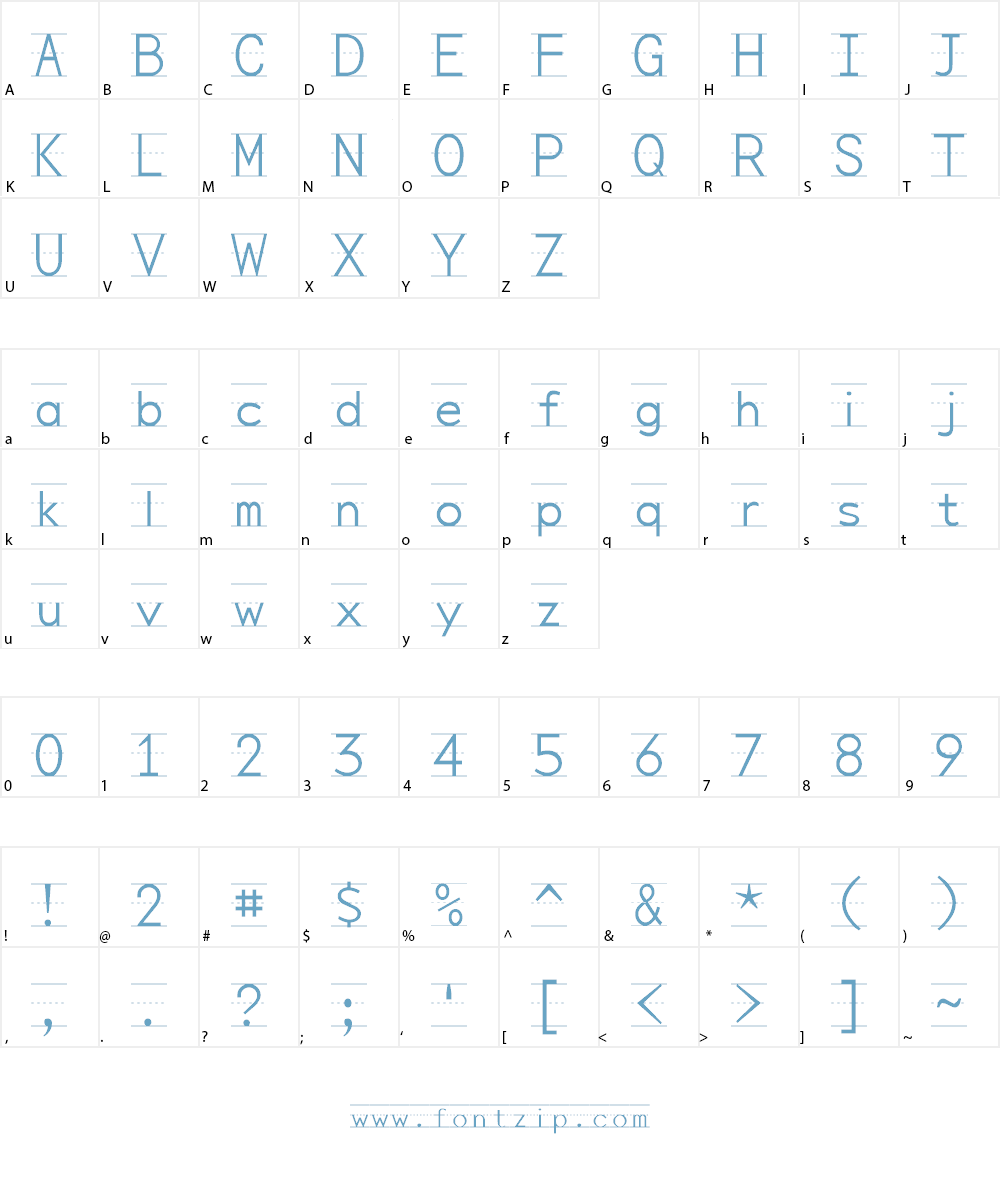
Penmanship Print is in response to the many requests I
have read from teachers looking for a freeware font with
printing guides.
I have sacrificed the Grave symbol (`) for a blank guide.